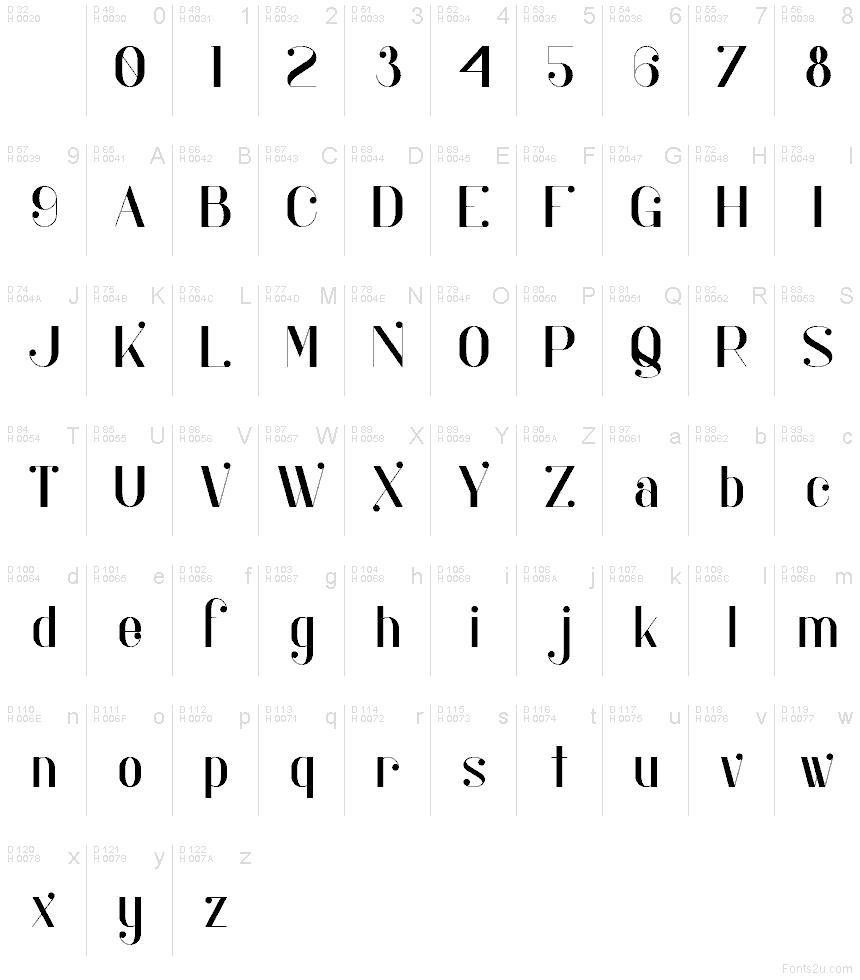
Kocka
Kocka font by VPcreativeshop is a unique condensed serif font that blends sleek, modern elements with minimalist design. This typeface stands out with its artistic flair, incorporating subtle geometric features for an avant-garde appearance.